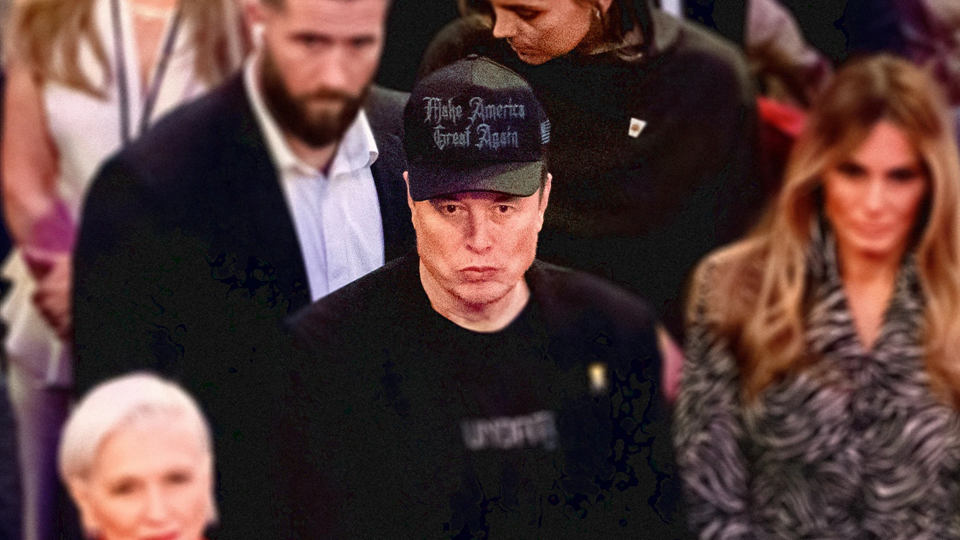
Did Elon Musk really wear a MAGA hat with a Nazi font to Trump’s MSG rally?
Musk’s blackletter MAGA hat is drawing comparisons to Nazi lettering from the 1930s. Was it an accident or a troll?
(November 15, 2024), Elon Musk showed up to the Madison Square Garden rally of former President Donald Trump in a curious hat. It was black and embroidered with “Make America Great Again,” rendered in blackletter, the jagged letterform style often found in the logos of heavy-metal bands.
“I’m dark gothic MAGA,” Musk told the crowd.
But people had other ideas for what he was trying to evoke with his look. In no time, the internet erupted with opinions about the hat and its lettering. Some on X argued that Musk’s hat displayed Fraktur, a gothic font once used by the Nazis in Germany.
But the reality is even more complicated that that. According to type and calligraphy experts, the blackletter on Musk’s hat wasn’t Fraktur, or any other Nazi-associated font—but it didn’t have to be to have the same effect.
What was that typeface?
Cheryl Jacobsen, an adjunct professor of lettering at the University of Iowa, explains that blackletter was established in Germany as a folk style tied to the Bible. Flavors of blackletter were used throughout medieval Europe and have been used ever since by many other cultures and in many other contexts.
Blackletter has a long history of use in Germany, though it was eventually replaced by Roman letterforms. During the rise of Adolf Hitler in pre-WW II Germany, the Nazi party re-embraced blackletter—specifically Fraktur and Textura letterforms—as a nod to its ardent nationalism. It showed up on propaganda, in newspapers, and on the cover of Hitler’s Mein Kampf.
But “the relationship between Nazis and blackletter typefaces is complicated,” says Florian Hardwig, managing editor of Fonts In Use typography archive. “In January 1941, with the war in full swing, they did a 180-degree turn and banned all broken script—commonly known as blackletter—from official communications.” Hitler claimed blackletter was invented by a Jew, although the reality was that the letterforms were simply too hard to read for most people.
Still, blackletter has persisted as a visual marker of Nazi ideology thanks to film and TV, as well as its use by Neo-Nazi groups in Germany and elsewhere. Jacobsen cites the book Blackletter: Type and National Identity, which states: “Fraktur is now perceived worldwide as Nazi script, even after its interdiction by the Nazis themselves.”
Hardwig says the typeface on Musk’s hat was not Fraktur. “I would characterize the style used on Musk’s cap as a modernized Old English,” Hardwig says. “It is not in the style most commonly associated with Nazism.”
He adds that “members of the general public associate all sorts of blackletter with Nazi Germany, but strictly speaking, the font on the cap is not a Nazi font per se.”
Internet sleuths believe that the hat uses Anemouth, developed in 2021. “It’s such a weird bastardized version of [blackletter],” Jacobsen says.
Why did Musk wear the hat?
Of course, for the 99.9% of people on this planet who are not typeface experts, the differences in blackletter font families are impossible to distinguish. For most Johns, Joes, and Elons out there, the typefaces look so similar that, in our brains, they are interchangeable. Which is why Musk’s choice to wear one on his hat feels so rife with meaning.
Hardwig says that blackletter typefaces are often associated with toughness or even aggressiveness, regardless of their origins. “Choosing such a style for an application outside specific fields such as newspaper mastheads or beer logos is typically done for the sake of provocation,” he says.
Musk is a known provocateur—to put it kindly. For him to wear this hat at this rally, especially after wearing other, less semantically loaded MAGA hats during previous campaign trail appearances, is not exactly a coincidence.
Before the event, Trump’s increasingly vitriolic language led many media outlets to draw a parallel between the MSG rally and a rally held in the same location in 1939, where the pro-Hitler organization German American Bund preached its Nazi ideals camouflaged as pro-American rhetoric. Twenty thousand people attended that rally—with another 100,000 waiting outside—where people spoke against the backdrop of a colossal full-body portrait of George Washington flanked by swastikas.
Could Musk have been oblivious to this connection? Perhaps. Was he aware and simply wearing the hat as a proverbial middle finger to his detractors? More likely. The truth is, it doesn’t really matter if the hat’s lettering is set in the official Nazi brand-book typeface or a variation of it. What matters is the message. Even if Musk was simply being daft and felt like dressing up as a MAGA goth on this particular day, he forgot a cardinal rule of design: Objects do not exist without context.